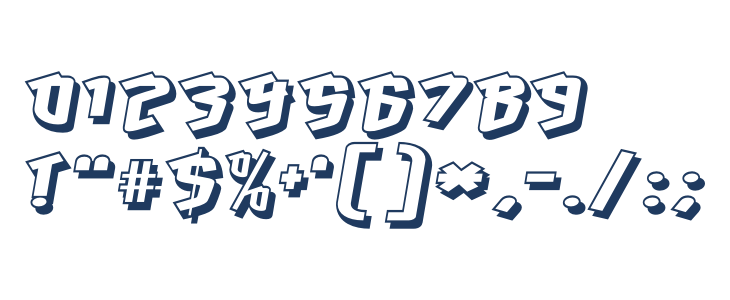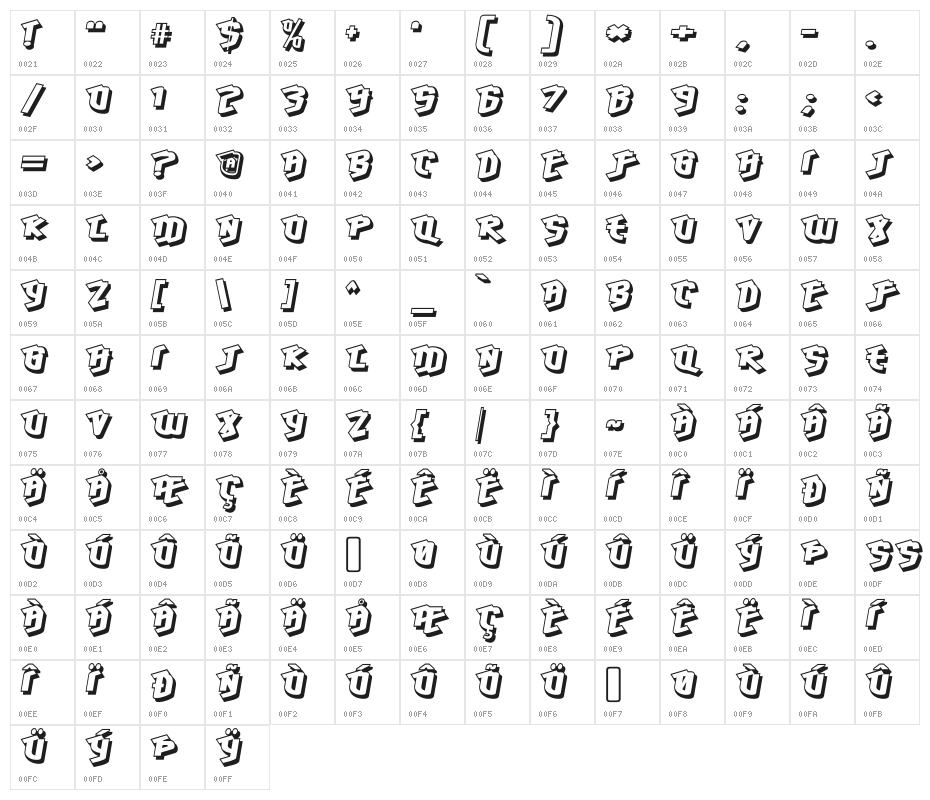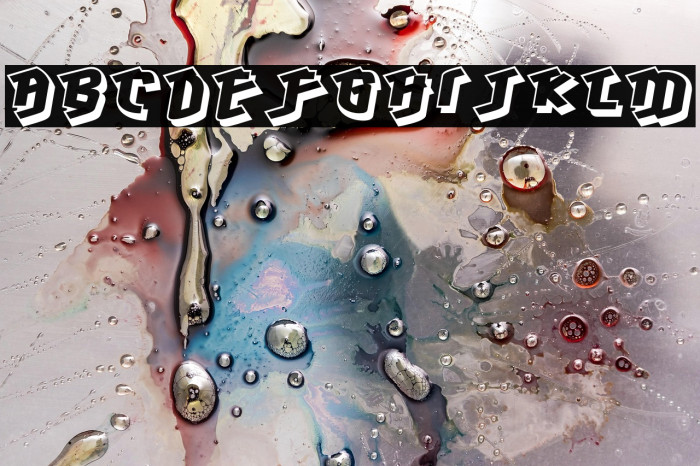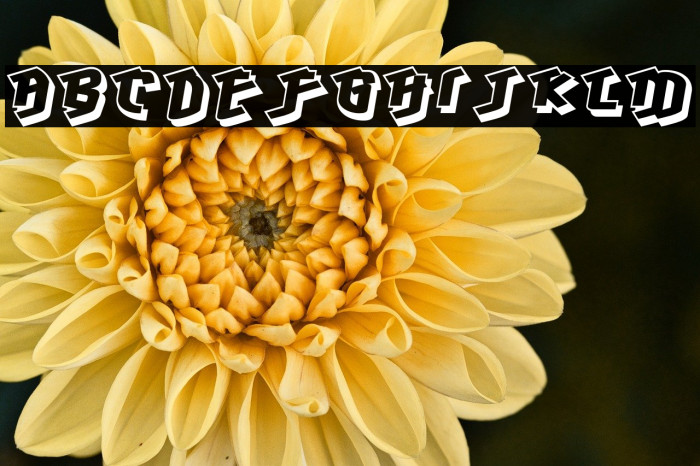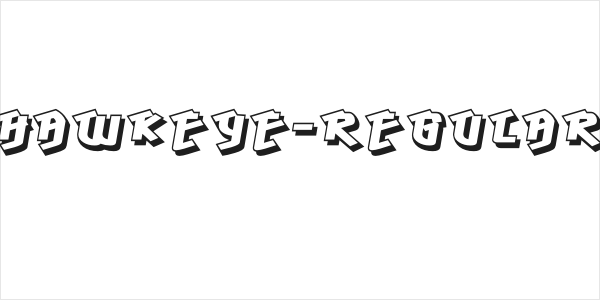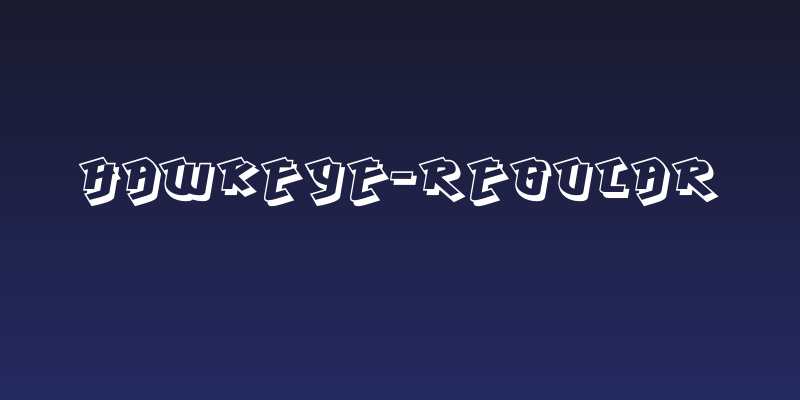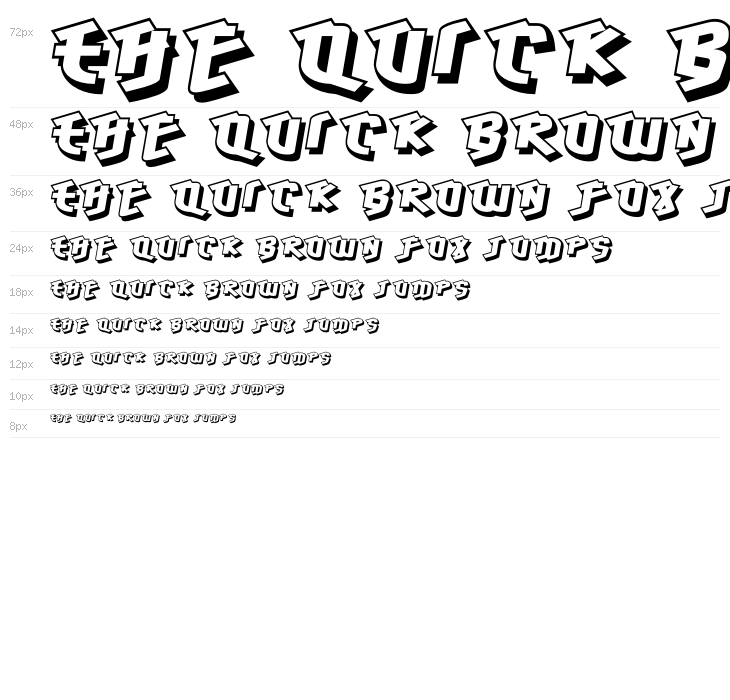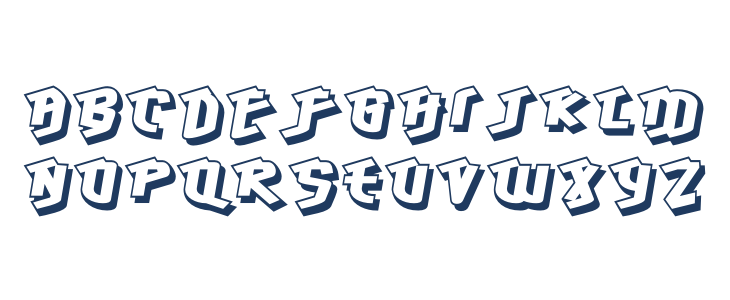
Hawkeye-Regular Font
Hawkeye-Regular Description
This font features a bold and dynamic style with a three-dimensional effect, giving each character a shadowed appearance. The letters are angular and geometric, with sharp edges and a sense of movement, making them stand out prominently. The uppercase and lowercase letters maintain a consistent style, while the numbers and special characters follow the same bold, impactful design. This font is ideal for creating eye-catching headlines or logos that require a strong visual presence.
| Proposed Projects | Perfect for sports team logos, video game titles, or any project needing a bold, dynamic typeface. |